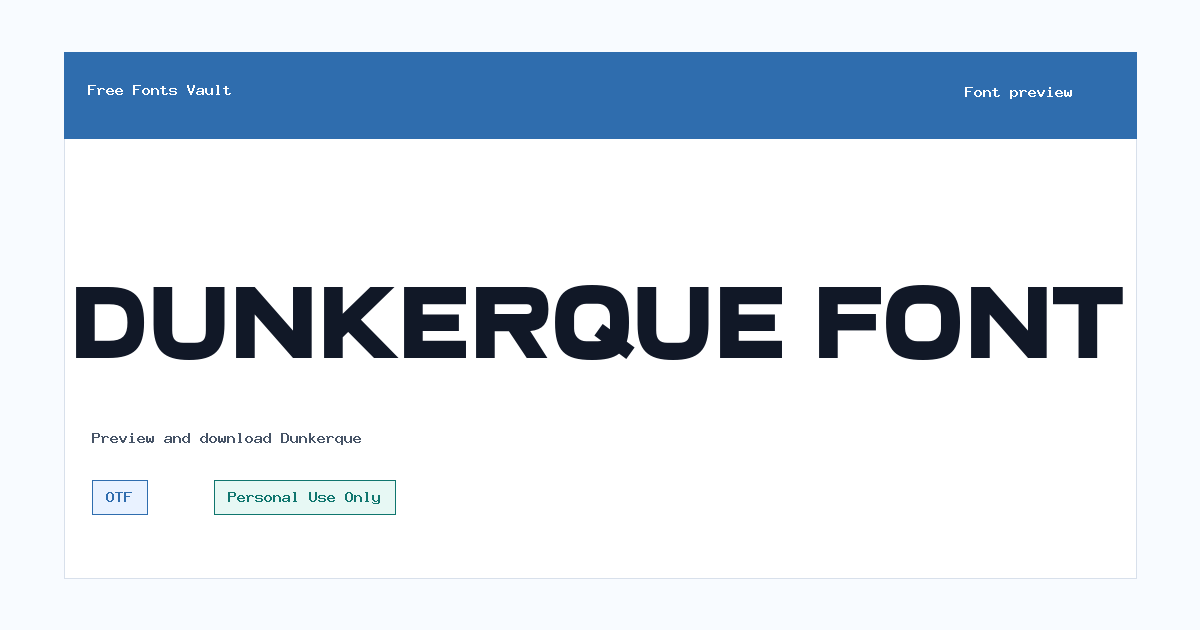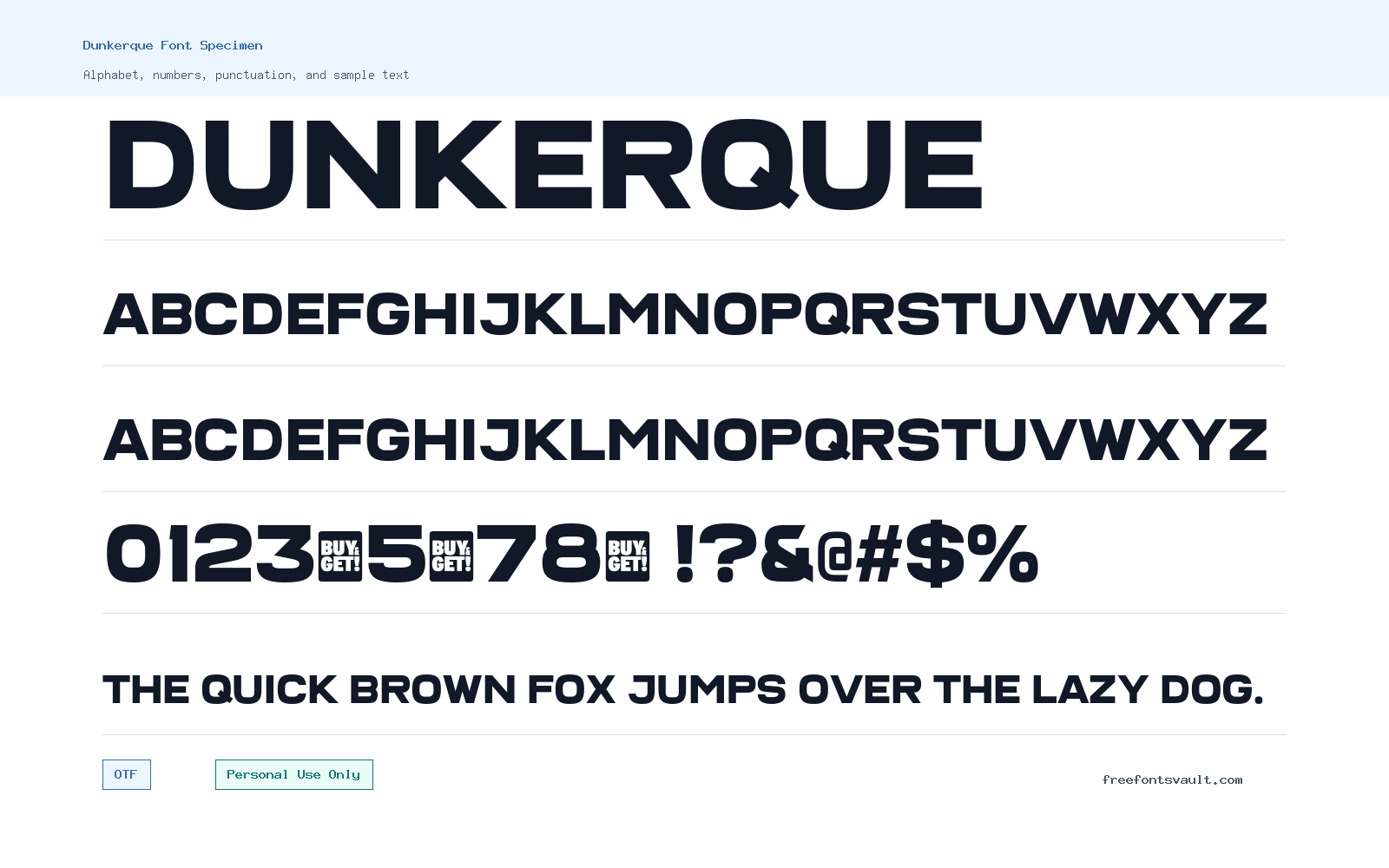
Dunkerque
Dunkerque is a sans serif display font with a clean, structured feel, made for short pieces of text where the letter shapes can stand out. It is best treated as a preview-and-test font for personal projects, concept work, and visual experiments rather than a ready-to-use commercial typeface.
About Dunkerque Font
Dunkerque has the kind of direct sans serif look that works well when you want a title, logo draft, poster heading, or web mockup to feel tidy without becoming too plain. The regular style gives you a straightforward starting point: one OTF file, normal style, and a 400 weight. That makes it easy to install, preview, and compare against other display fonts while you are shaping an idea. Because only the regular weight is listed, the font is not a full multi-weight family. It is better for focused display use than for complex layouts that need bold, light, italic, or extended text styles.
Use Dunkerque where the words are short and the spacing can breathe. It can be tested for logo concepts, brand mood boards, editorial headers, poster titles, social graphics, packaging mockups, and clean website hero text. In longer paragraphs, any display-leaning sans serif should be checked carefully for reading comfort, line spacing, and letter spacing. Try a few real phrases in the preview: a brand name, a headline, a date line, and a short call-to-action. If the design feels too tight or too quiet at small sizes, pair it with a more neutral text font for body copy. A simple grotesk, humanist sans, or readable serif can help Dunkerque stay focused on the main headline while the supporting text remains easy to scan.
For logo work, treat Dunkerque as a useful starting point rather than a finished identity by itself. Type a short name in uppercase and lowercase, test common problem pairs, and check the spacing around round letters, diagonals, and narrow characters. If you plan to build a real brand mark, refine the kerning and confirm the license before using it outside personal work. For posters and web mockups, it should be tested at the actual size you plan to show it. A font that looks balanced in a large preview may need tracking adjustments in a narrow banner or mobile hero area.
- Clean sans serif display style suited to short text, headlines, and concept layouts
- Simple single-style setup that is easy to test in design apps
- Best used where the font can be shown at medium to large sizes
- Logo drafts and brand mood boards
- Website hero headings and landing page mockups
- Social media title cards and clean promotional layouts
- Packaging concepts and presentation slides
- Personal design experiments and typography tests
Does Dunkerque include multiple weights?
Only a regular style with 400 weight is listed. If you need a full type system with bold, italic, or lighter weights, you may need another font family for support.
What is Dunkerque best used for?
It is best for short display text such as logos, poster headings, web hero sections, social graphics, and personal mockups.
What should I pair with Dunkerque?
Pair it with a clean, readable body font. A neutral sans serif or simple serif can handle paragraphs while Dunkerque stays focused on headlines and key display text.